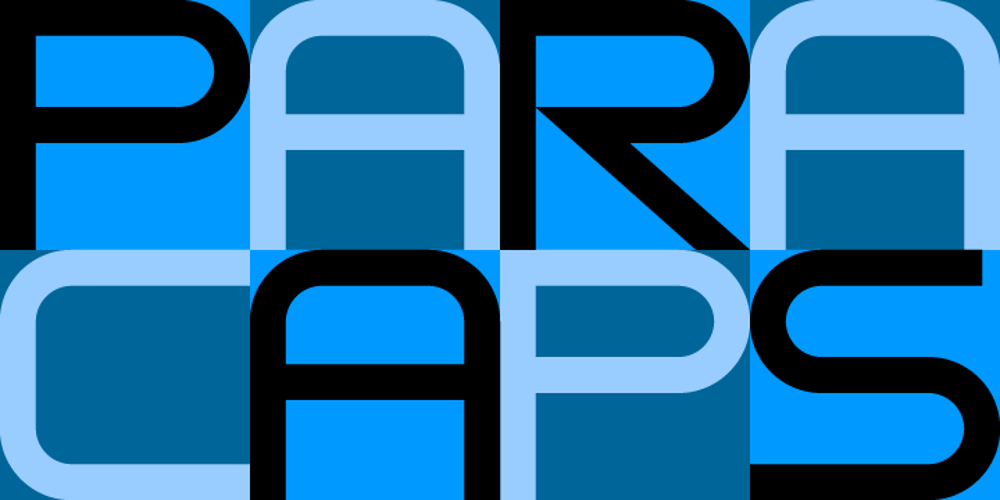
ParaCaps Font Family was designed by Jan Schmoeger and published by Paragraph. ParaCaps contains 3 styles and family package options. This decorative, headline or logotype geometric font consists entirely of uppercase letters. The glyphs of uppercase are rounder than their lowercase counterparts, allowing playful interaction within words, contrasting round and square shapes. The font is an extension of the Paragraph fonts family, however the capitals of ParaCap and lower case glyphs of Paragraph are not designed to be used together. That said, you are welcome to try 🙂